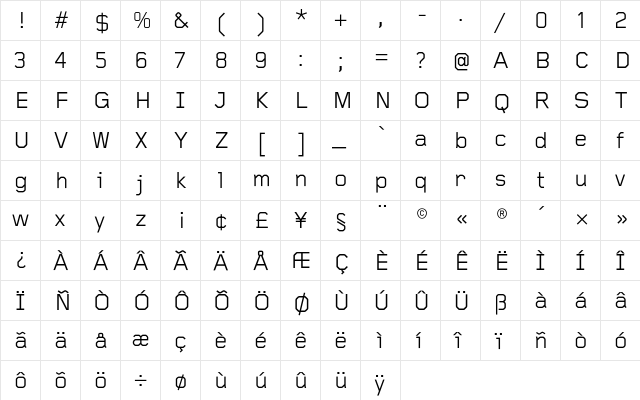
Gridnik Regular
Design Context for Gridnik Typeface
Gridnik offers clean, dependable letterforms without strong stylistic allegiance, making it a practical choice for designers who need flexibility.